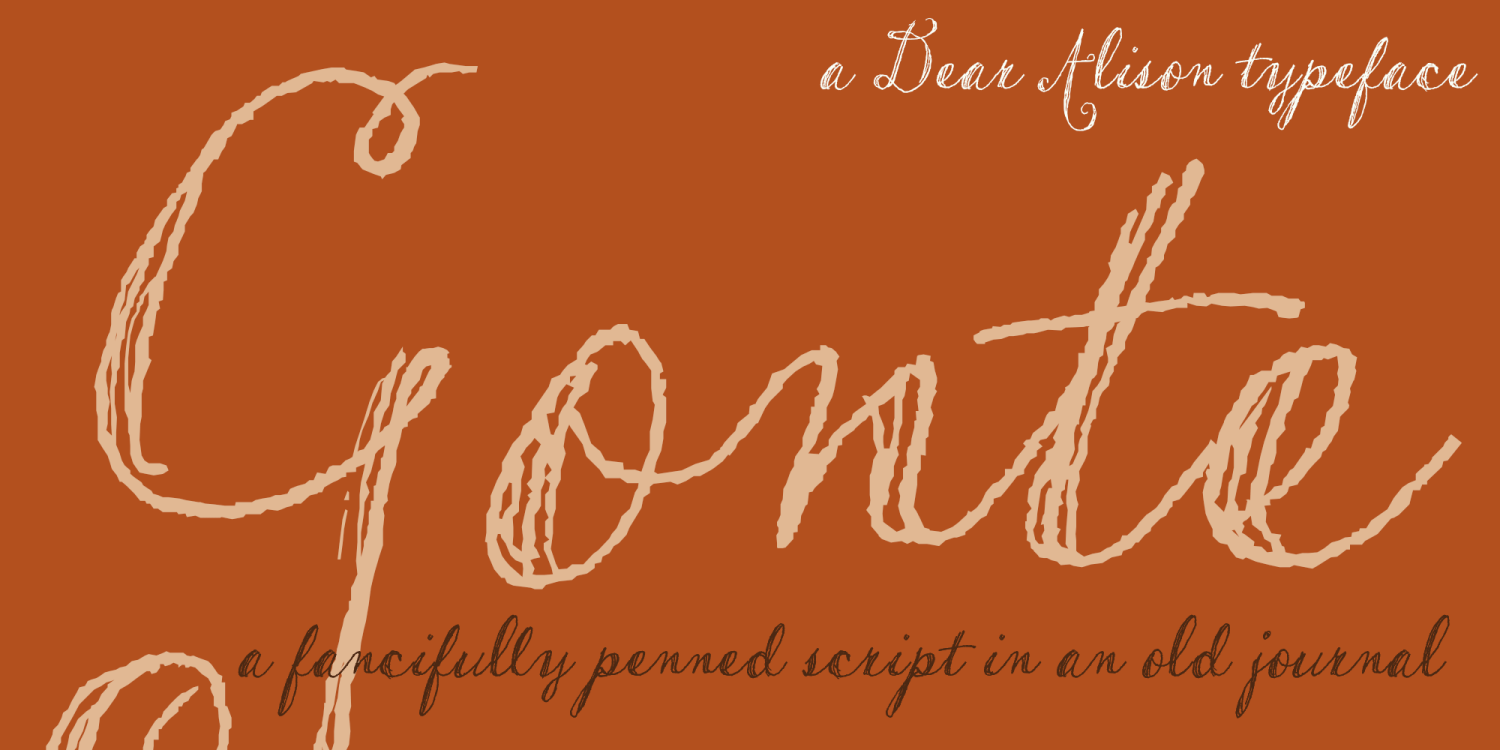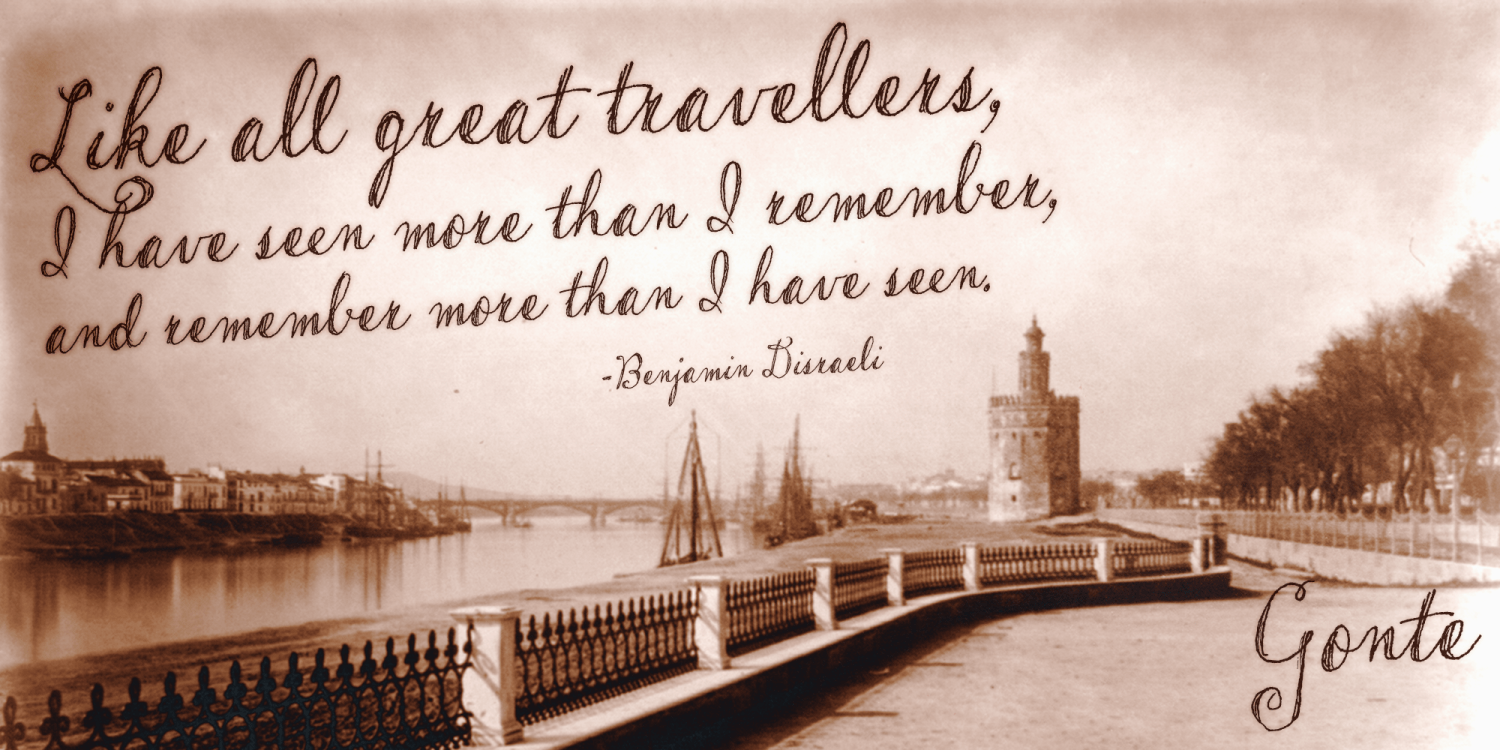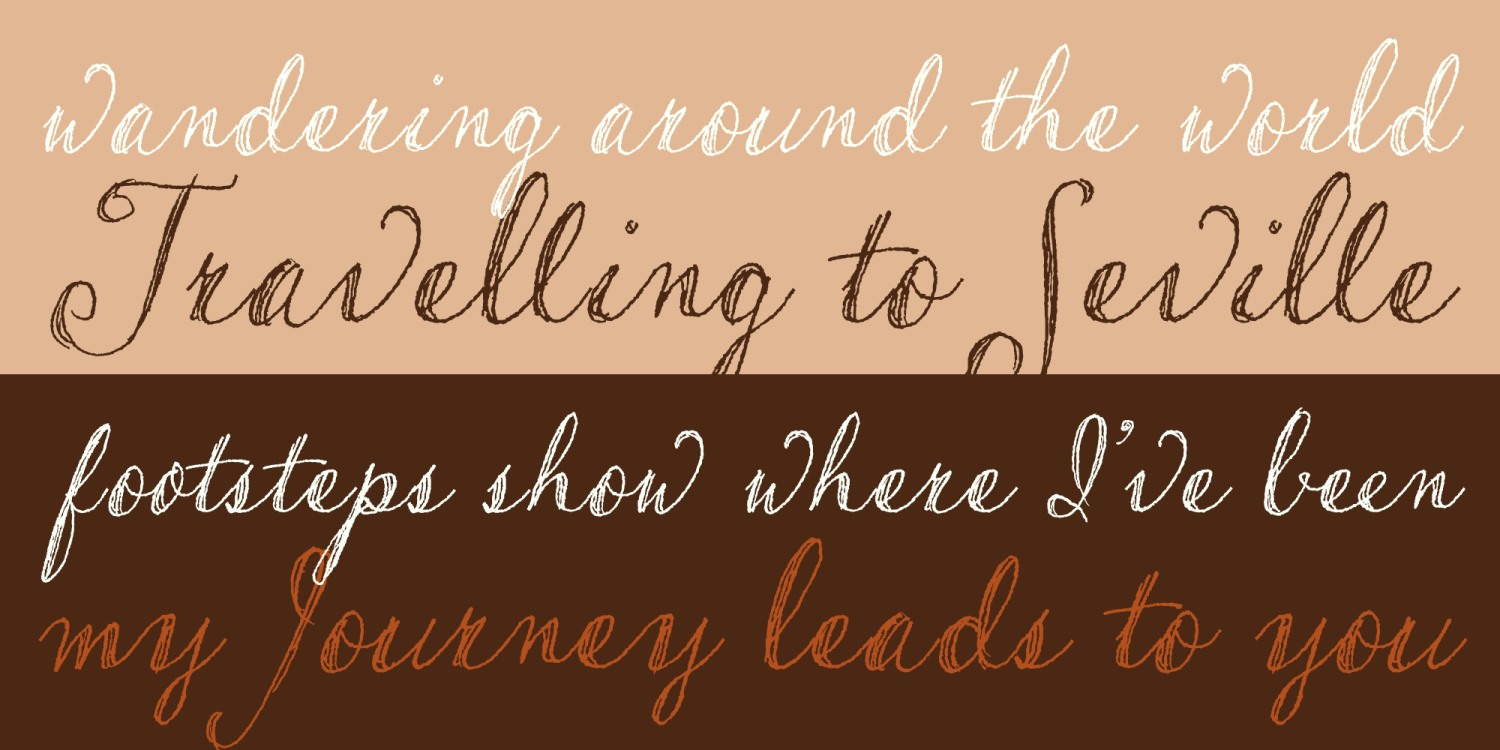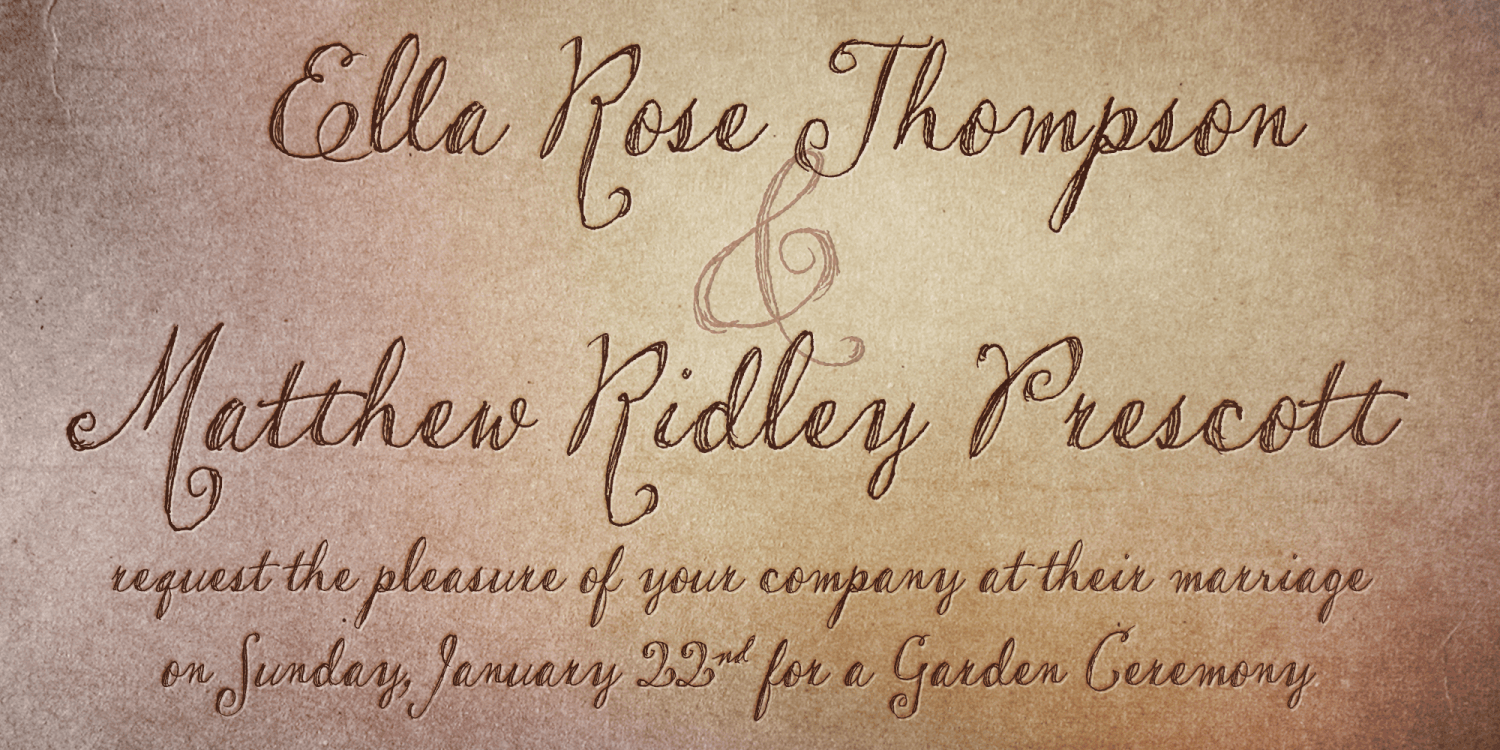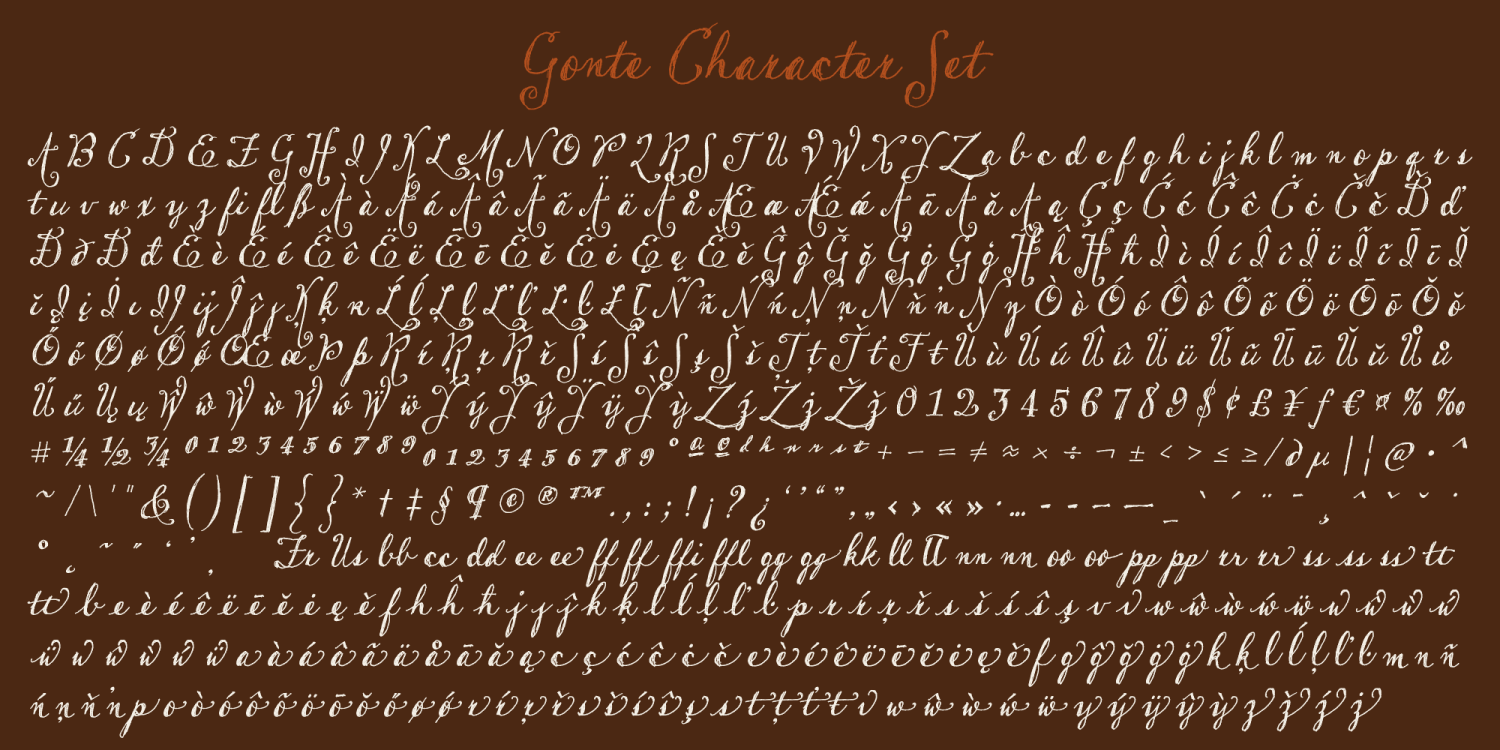
Gonte
Font Family by Dear Alison
If you are like me, you love to doodle in a sketchbook when traveling abroad to capture the indescribable moments that a camera or video would miss. Years ago, on a trip to Spain, I penned out this fanciful handwritten script and just fell in love with it. I came across that old sketchbook recently, and the love affair was renewed. Gonte brings back all of the magic and charm of that trip, and I hope that it will bring a little magic to whatever flights of fancy you might use it for. Double letter Ligatures, Contextual Swashes to start and finish letterforms, and Stylistic Alternates for the lowercase v and w all lend to keeping the carefree hand-penned style.